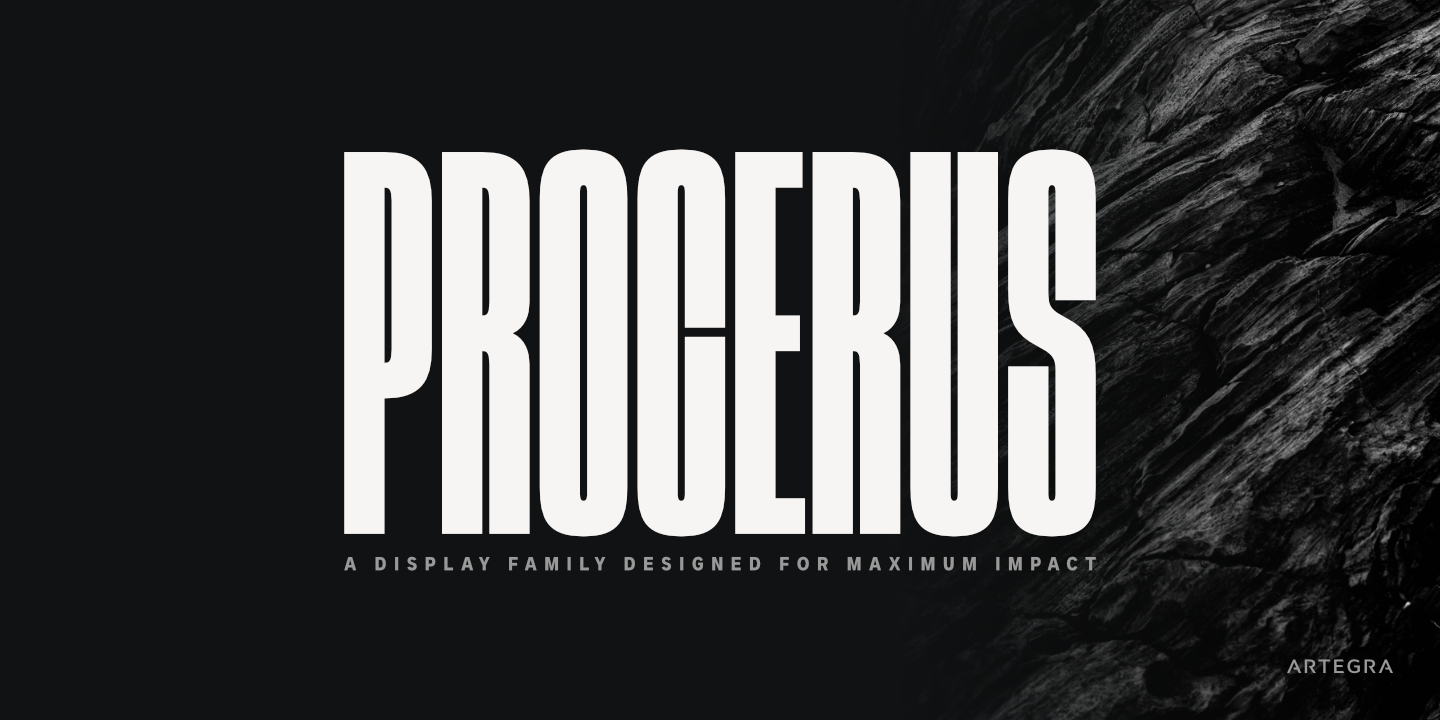
Procerus Font is perfect for tall architectural signage, vertical banner designs, skyscraper branding projects, tower construction logos, elongated poster campaigns, monumental building identities, high-rise development marketing, vertical display systems, and impressive structural advertisements.
What makes Procerus Font so exciting is its majestic vertical elegance that perfectly captures the soaring ambition and architectural grandeur of towering structures and monumental achievements. This impressive typeface features elongated letterforms with stately proportions and commanding vertical presence that create an immediate sense of height, aspiration, and structural magnificence. The font's distinctive character incorporates the essence of reaching skyward while maintaining exceptional readability, making it ideal for architectural brands seeking to communicate ambition, excellence, and monumental scale.
Procerus Font offers a towering family collection including Thin, Light, Regular, Medium, Bold, and Black weights, each designed to maintain the signature vertical aesthetic while providing different levels of architectural impact for various structural and monumental applications. Advanced OpenType features include architectural symbols and extended character support for international construction projects requiring professional precision.
Whether you're developing impressive architectural brand identities, creating monumental marketing materials, or designing towering campaign visuals, Procerus Font Free Download provides the vertical magnificence and structural authenticity that architectural projects demand. Its versatile nature makes it suitable for both large building displays and detailed construction documentation while maintaining consistent monumental appeal across all architectural platforms. This exceptional typeface combines architectural vision with practical functionality, ensuring your message communicates ambition and excellence that resonates with audiences who appreciate monumental achievements and value design that represents the highest standards of architectural aspiration and structural engineering excellence.